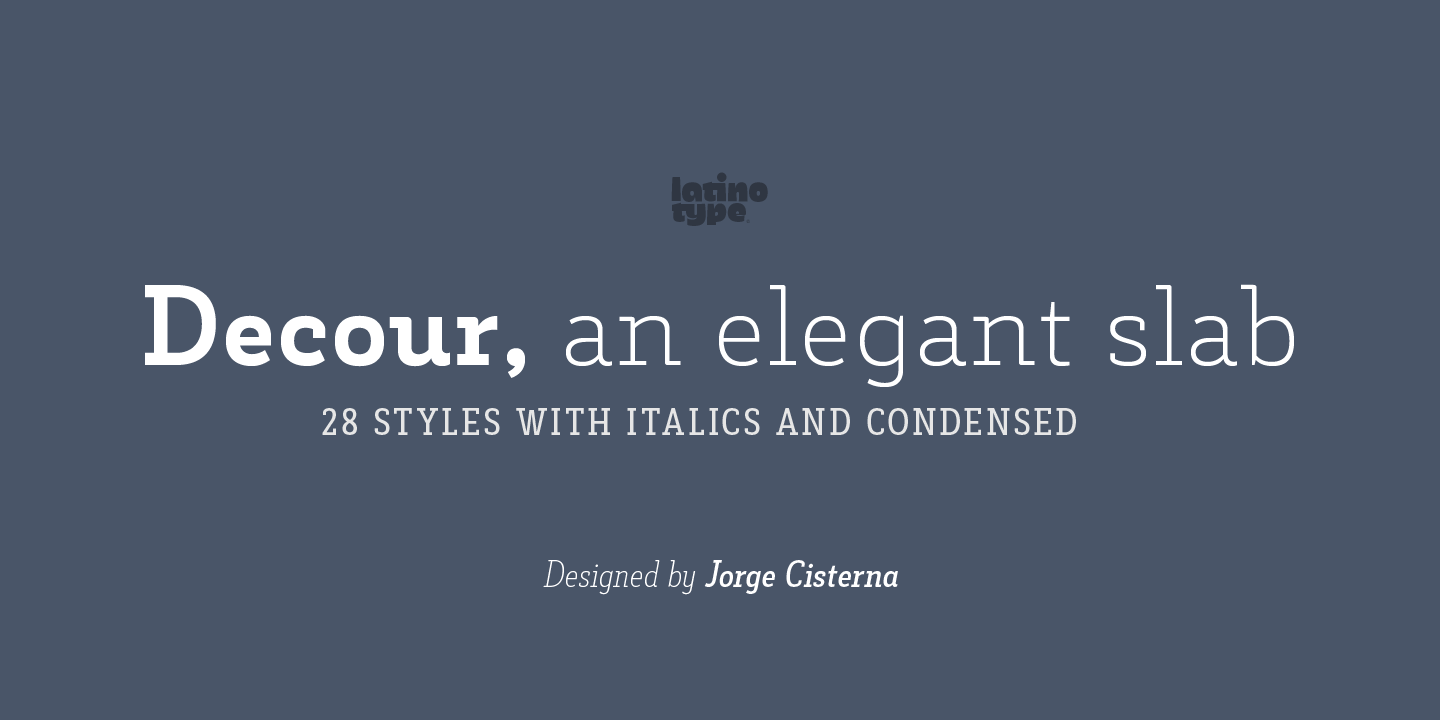
Decour Font Free Download is an elegant, modern serif typeface that combines clean lines with a sophisticated feel. Perfect for branding, logos, packaging, editorial layouts, and web design, this font brings a refined, stylish aesthetic to your projects. With its sleek design and versatile letterforms, Decour Font is ideal for projects that need a balance of sophistication and readability.
With Decour Font Free Download, you’ll receive a complete set of uppercase letters, lowercase, numbers, and essential punctuation, offering flexibility for various design needs. Whether you're creating a luxurious brand identity, developing modern marketing materials, or designing a polished website, this font ensures a professional and chic appearance.
Add a refined and timeless touch to your creative projects with Decour Font Free Download. Its elegant, contemporary style makes it an ideal choice for designs that need sophistication, balance, and modern flair.